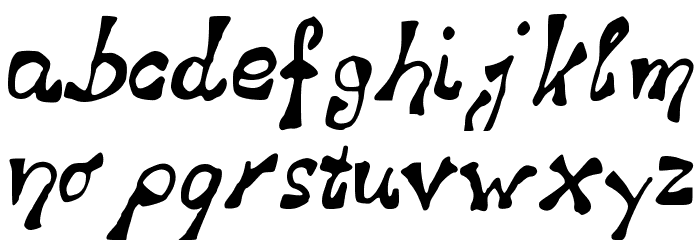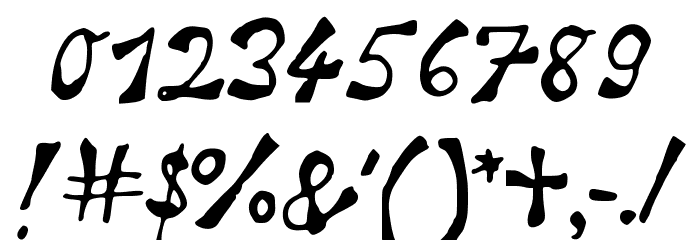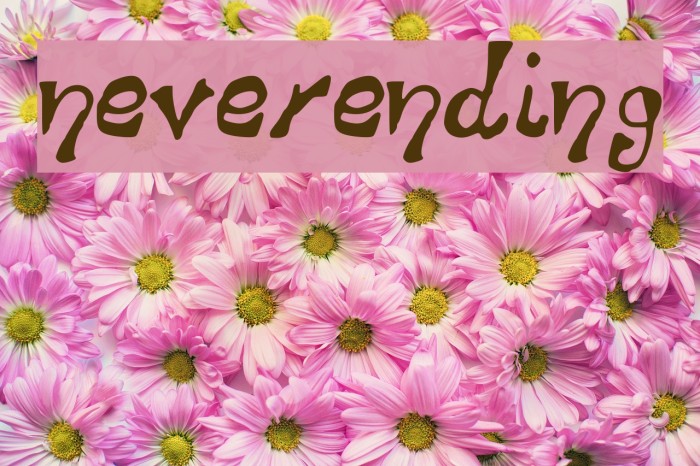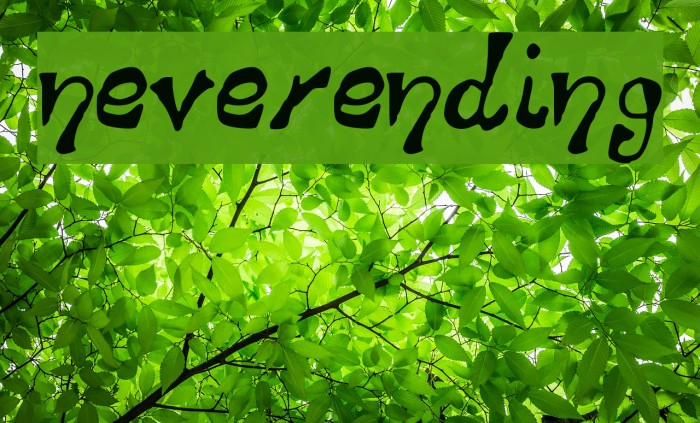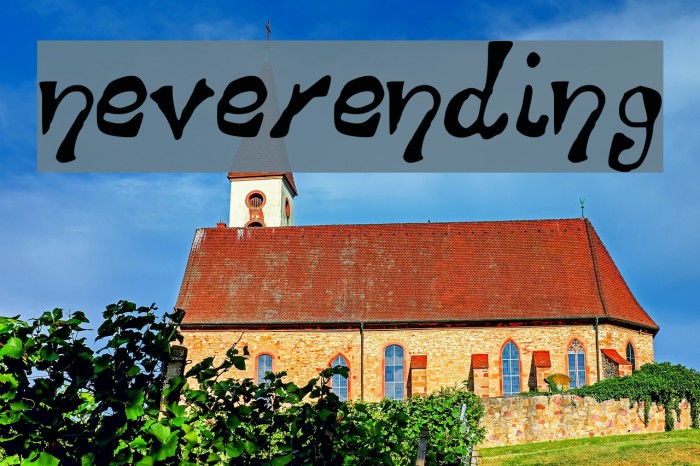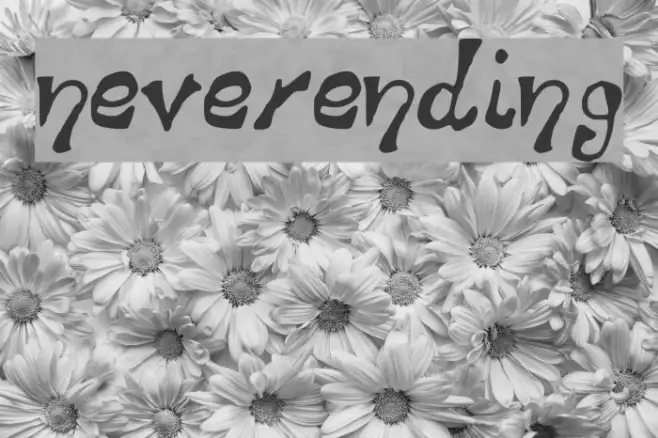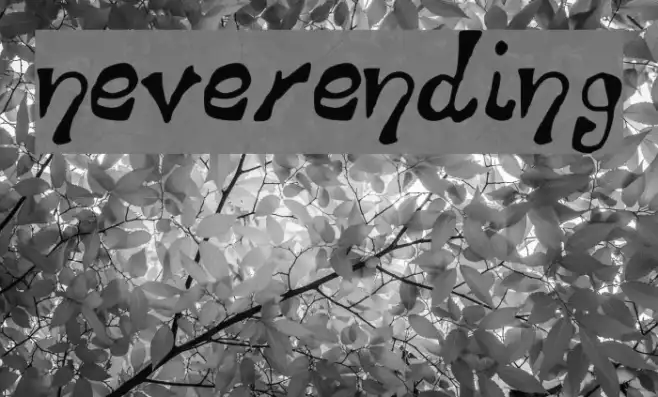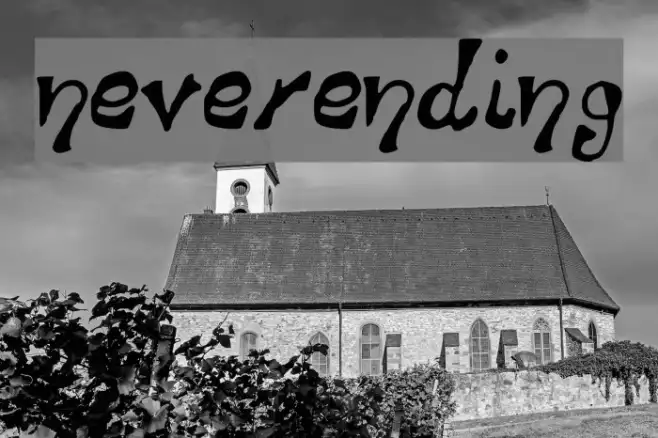
never_ending Font
This font features a dynamic and expressive style, characterized by its bold and slightly irregular strokes that give it a hand-drawn appearance. The uppercase letters are robust and slightly slanted, while the lowercase letters maintain a playful and whimsical feel. The numbers are consistent with the overall style, offering a cohesive look. Special characters are creatively integrated, maintaining the font's unique personality. The font's design is suitable for projects that require a personal touch, such as invitations, posters, or branding materials that aim to convey a sense of creativity and individuality.
A bold, hand-drawn font with expressive, irregular strokes.
- Proposed Projects: Ideal for creative projects like invitations, posters, and branding materials.